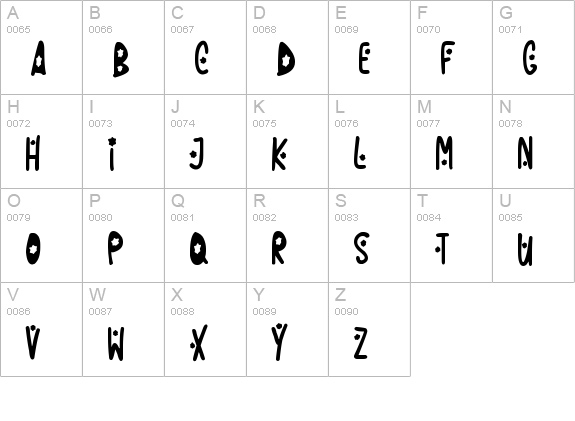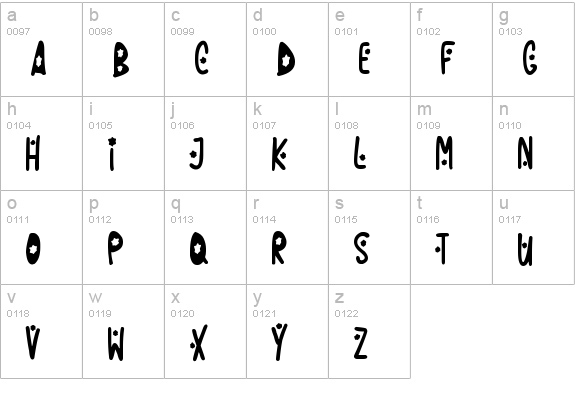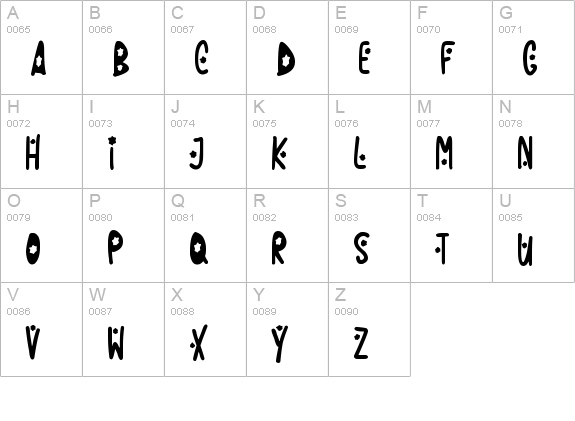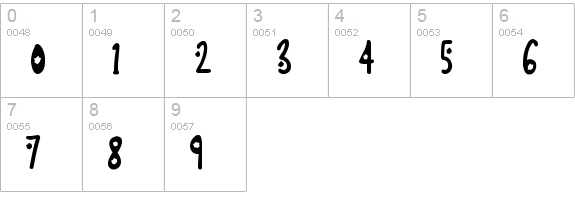
Fireworks Kid Font Details
Fireworks Kid is a donationware font in the Fancy > Comic category, designed by Darrell Flood. It has been downloaded 28 times and is available for Windows, Mac and Linux.
Introducing Fireworks Kid font, a whimsical and playful typeface that will bring a burst of fun to your designs. This unique font features charming hand-drawn letterforms that dance across the page like fireworks in the night sky. With its bold strokes and cheerful demeanor, Fireworks Kid is perfect for creating eye-catching posters, invitations, and more.